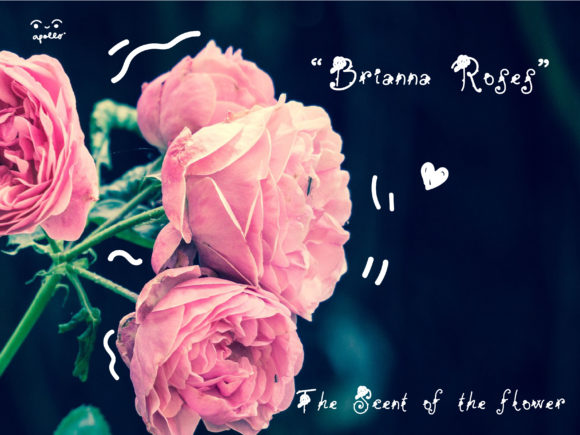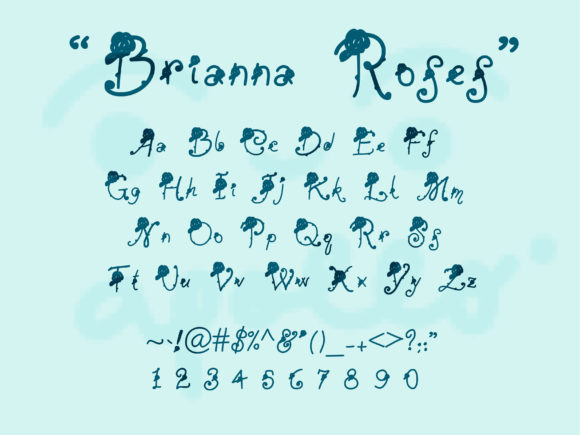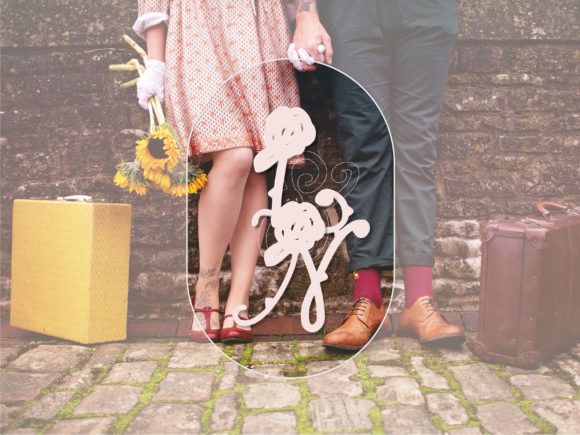
A Love Story in Every Letter
Have you ever stumbled upon a design that makes your heart skip a beat? For me, it was a wedding invitation that featured a beautiful, handwritten script. The intricate details and elegant strokes transported me to a world of romance and love. It was then that I discovered the Brianna Roses Font – a stunning typeface that wraps roses around each character, making every letter a symbol of affection.
Created to convey the beauty of love and relationships, the Brianna Roses Font is a treasure trove for designers looking to add a touch of elegance to their projects. Whether it’s a greeting book, a novel, or a fairy tale, this font is the perfect choice to express deep emotions and sentiments. Its luxurious and gorgeous design makes it an invaluable asset for any designer seeking to create something truly special.
Brianna Roses Font Key Features
- Unique Characteristics: Elegant, cursive script with a touch of romance, perfect for wedding invitations, greeting cards, and other special occasions
- Font Style: Script, Casual
- Language Support: Multilingual support, including Latin, Cyrillic, and Greek alphabets
Brianna Roses Font Review
As a designer, I’ve had the chance to work with many fonts, and the Brianna Roses font is definitely a unique one. I’d say it’s a great choice for those looking for a romantic and whimsical feel. ✨ The font’s elegant script and soft curves make it perfect for wedding invitations, baby announcements, or any other design that requires a touch of sweetness.
Here are some of the things I love about this font:
- ✨ Its versatility: Brianna Roses can be used for a wide range of designs, from formal to informal.
- ✨ Its legibility: Despite its ornate appearance, the font is surprisingly easy to read, even at smaller sizes.
- ✨ Its uniqueness: With its intricate details and flowing lines, Brianna Roses is sure to add a touch of personality to any design.
- ⚠️ The font may be too ornate for some designs, overpowering the other elements.
- ⚠️ It may not be the best choice for headings or titles, as it can be a bit too busy.
- ⚠️ Some users may find the font a bit too cursive or flowing, making it difficult to read at a glance.
Overall, I’d say the Brianna Roses font is a great addition to any designer’s toolkit, especially for those looking for a romantic or whimsical feel. With its unique charm and versatility, it’s sure to add a touch of personality to any design.
Tips for Getting the Most Out of the Brianna Roses Font
To get the most out of the Brianna Roses Font, consider the following tips:
- Use the font in conjunction with a floral or vintage theme.
- Combine the font with other decorative elements, such as illustrations or graphics.
Alternatives to Brianna Roses Font
Caslon Floral Font
Caslon Floral is a classic, elegant font that resembles traditional handwritten scripts. It is perfect for creating a vintage or romantic atmosphere in designs. This font is ideal for use in wedding invitations, greeting cards, and other formal events. Compared to Brianna Roses Font, Caslon Floral has a more refined and delicate look, making it suitable for projects that require a touch of sophistication.
Great Vibes is a beautiful, handwritten font that features a mix of elegant and playful characteristics. It is ideal for use in designs that require a mix of modern and vintage elements. This font is perfect for creating a fun and energetic atmosphere in designs. Compared to Brianna Roses Font, Great Vibes has a more casual and carefree look, making it suitable for projects that require a touch of whimsy.
Carolyna Pro is a modern, elegant font that features a mix of classic and contemporary elements. It is ideal for use in designs that require a touch of sophistication and luxury. This font is perfect for creating a high-end atmosphere in designs. Compared to Brianna Roses Font, Carolyna Pro has a more refined and polished look, making it suitable for projects that require a touch of glamour.